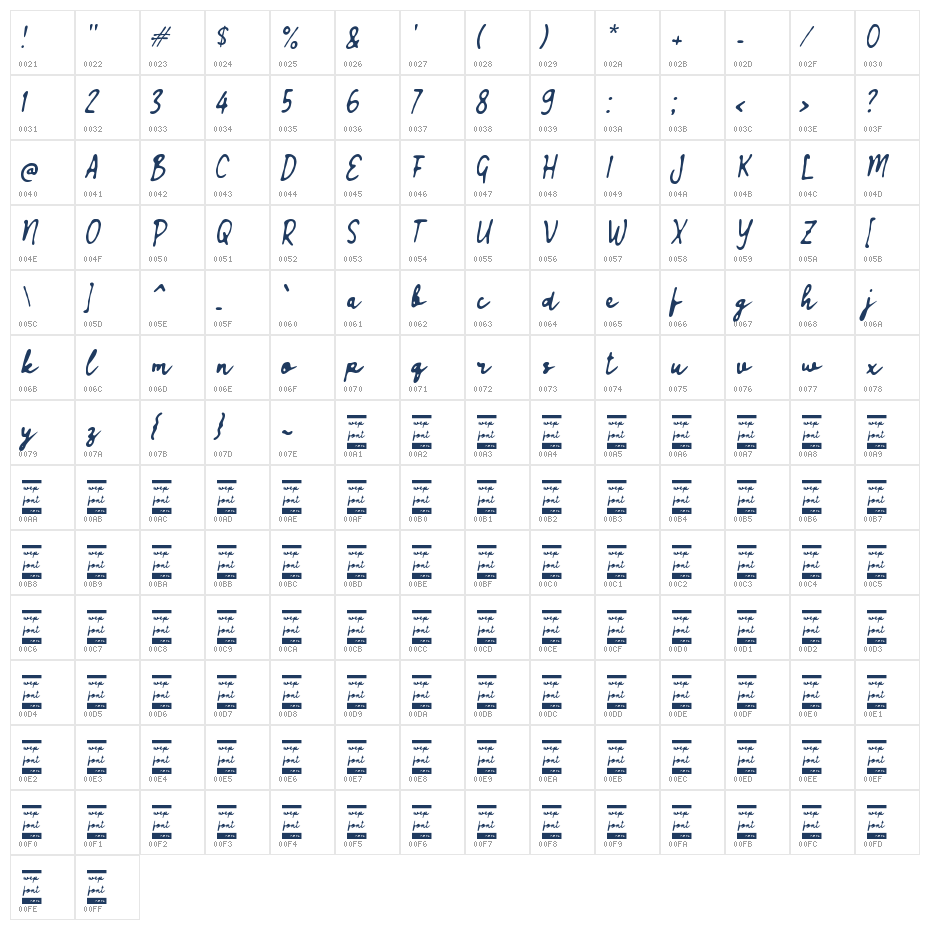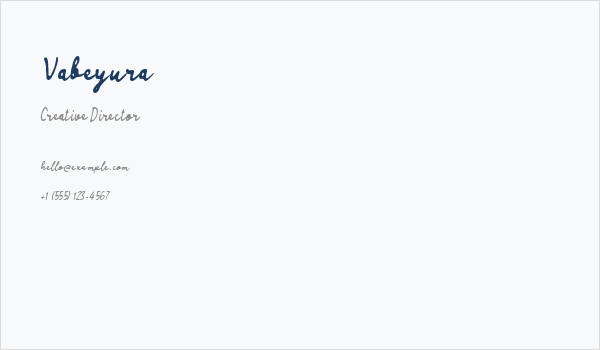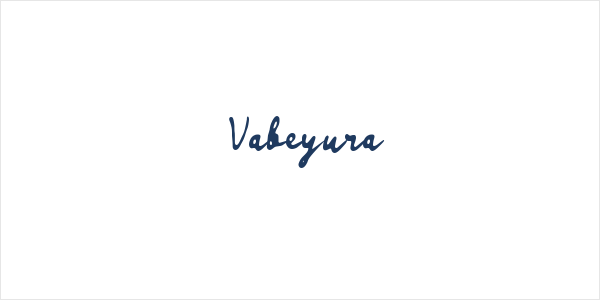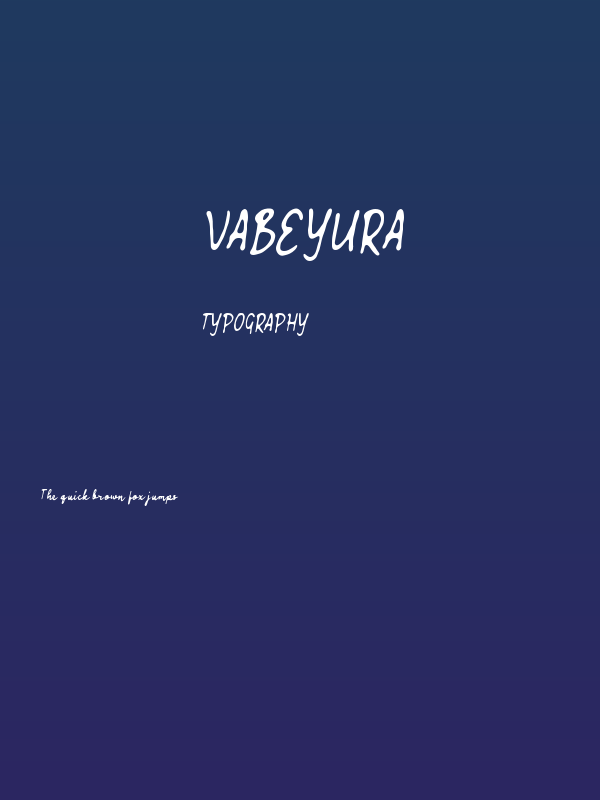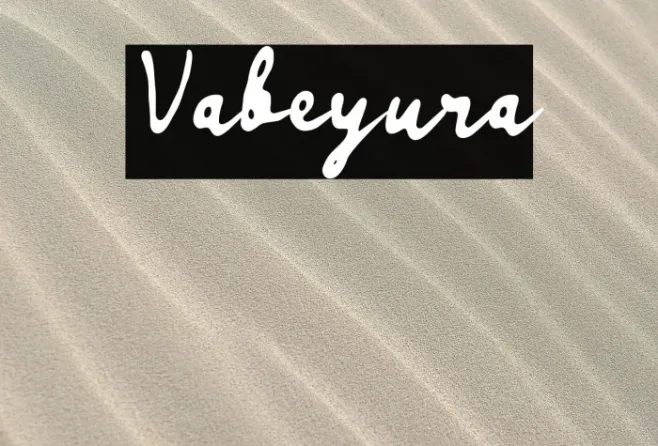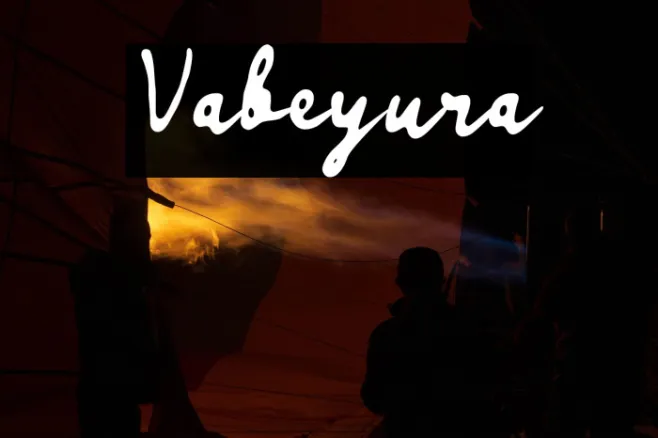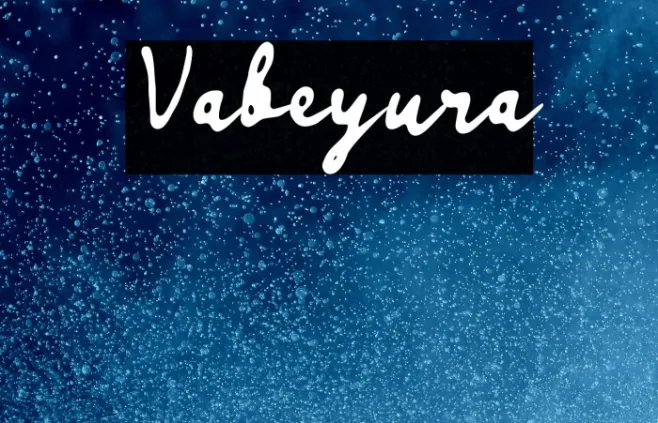
Vabeyura Font
Vabeyura Description
A casual, handwritten script font with a playful and informal style, featuring slightly irregular strokes and a smooth flow.